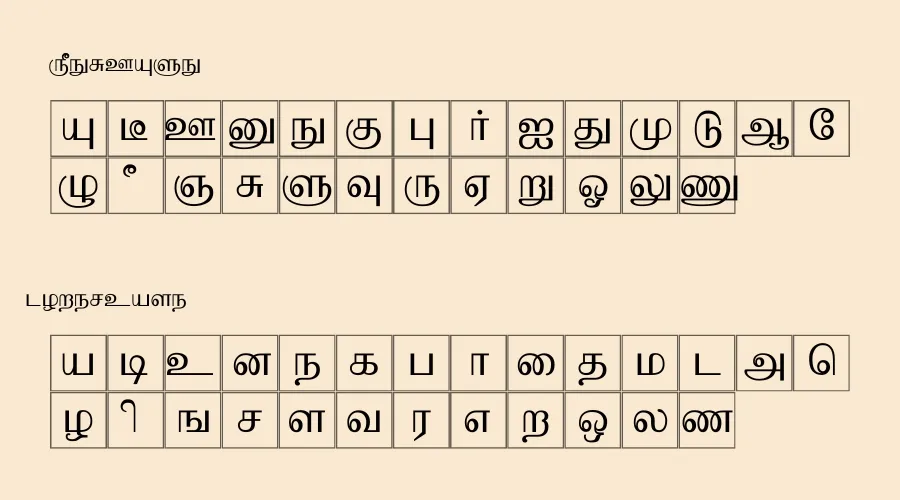
Baamini Font
About Baamini Font
In this blog, we present to you a famous display texture family. It is known as the name of Baamini font was developed by an impressive Hindi typeface foundry known as Haran Graph. You can get it in both file formats OpenType and TrueType.
This fantastic texture includes 83 stylish characters of an alphabet set, such as small letters, capital letters, digits, symbols, and punctuations.
It contains different weights (italic, regular, bold, and semi-bold) and styles. The Baamini Styles is a None-Unicode Tamil texture font and is understood as Tamil Legacy Fonts. The Tamil legacy produces font styles with English characters, that are suitable for printing, logo design, posters, and much more projects.